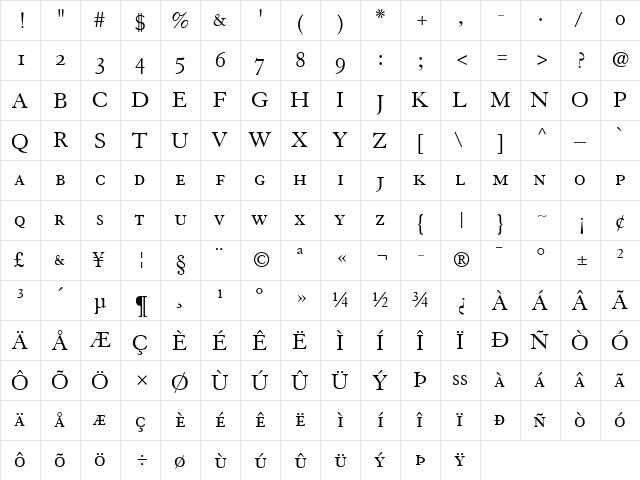
Granjon SC Regular
Design Context for Granjon SC Typeface
Granjon SC takes a measured approach to typography — its balanced proportions and neutral character make it a reliable workhorse for both digital and print work.